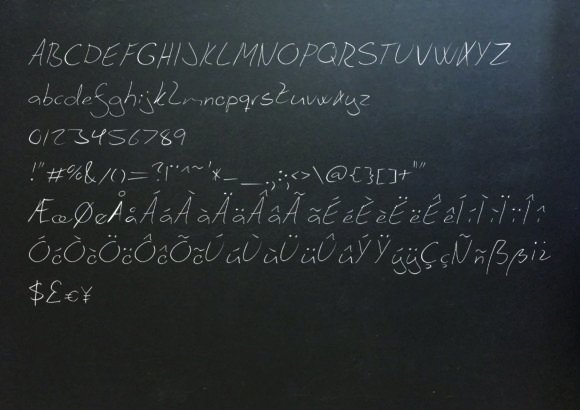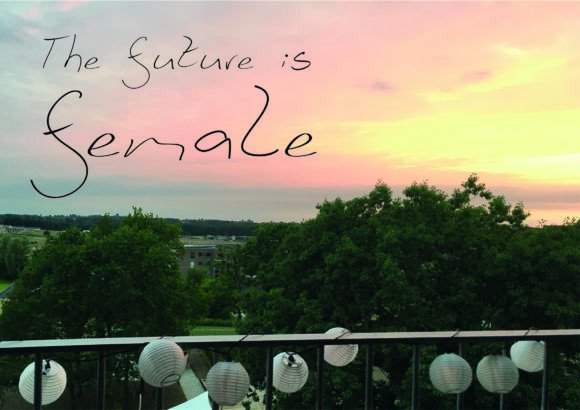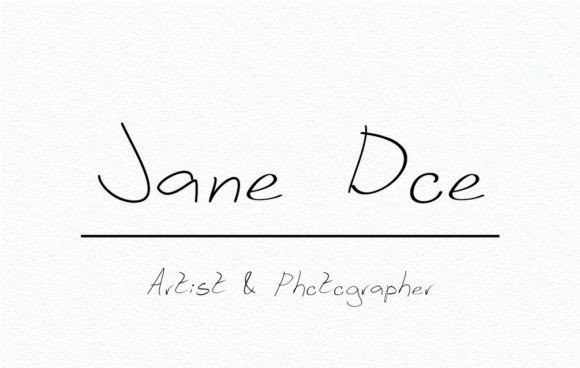
Introduction to Semine’s Handwriting Font
Semine’s Handwriting is a modern handwritten font with a lightweight and unique playfulness.
Whimsical and a bit quirky, it is perfect for any design project that needs a handwritten touch .
Key Features of Semine’s Handwriting Font